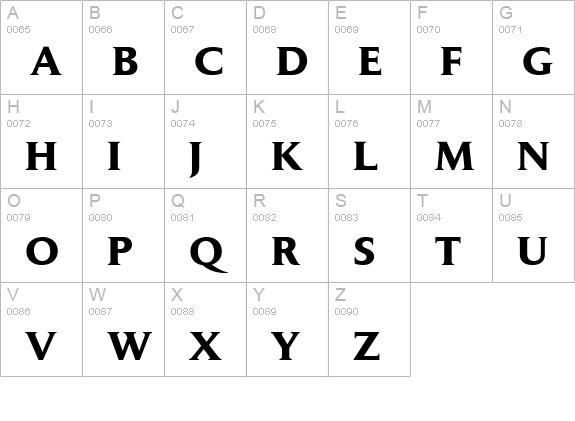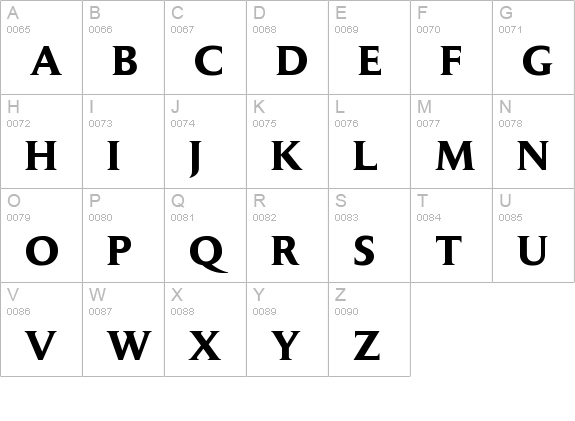
Daily News Bold is a strong, high-contrast variant in the Daily typeface family \xE2\x80\x94 well suited to headlines, attention-grabbing titles, and strong calls-to-action.
Introducing Daily News Bold, a striking font that exudes confidence and commands attention. Designed for those who want to make a bold statement, this font is perfect for headlines, titles, and any project that requires a strong and impactful visual presence. With its clean lines and bold letterforms, Daily News Bold captures the essence of modern typography while adding a touch of sophistication. Its versatile nature allows it to be used in a variety of design applications, from print to digital media. But what truly sets Daily News Bold apart is its accessibility. We believe that great design should be available to everyone, which is why we are thrilled to offer this exceptional font for free. That's right, Daily News Bold is freely available to download at FontsMarket.com, making it accessible to both professional designers and enthusiasts alike. Whether you're designing a magazine cover, a website header, or a promotional poster, Daily News Bold will add a touch of elegance and professionalism to your project. Its bold and commanding presence will ensure that your message is conveyed with utmost clarity and impact. So don't miss out on this incredible opportunity to enhance your design arsenal. Download Daily News Bold for free at FontsMarket.com and elevate your designs to a whole new level of excellence. Embrace the power of typography and make a bold statement with Daily News Bold today!